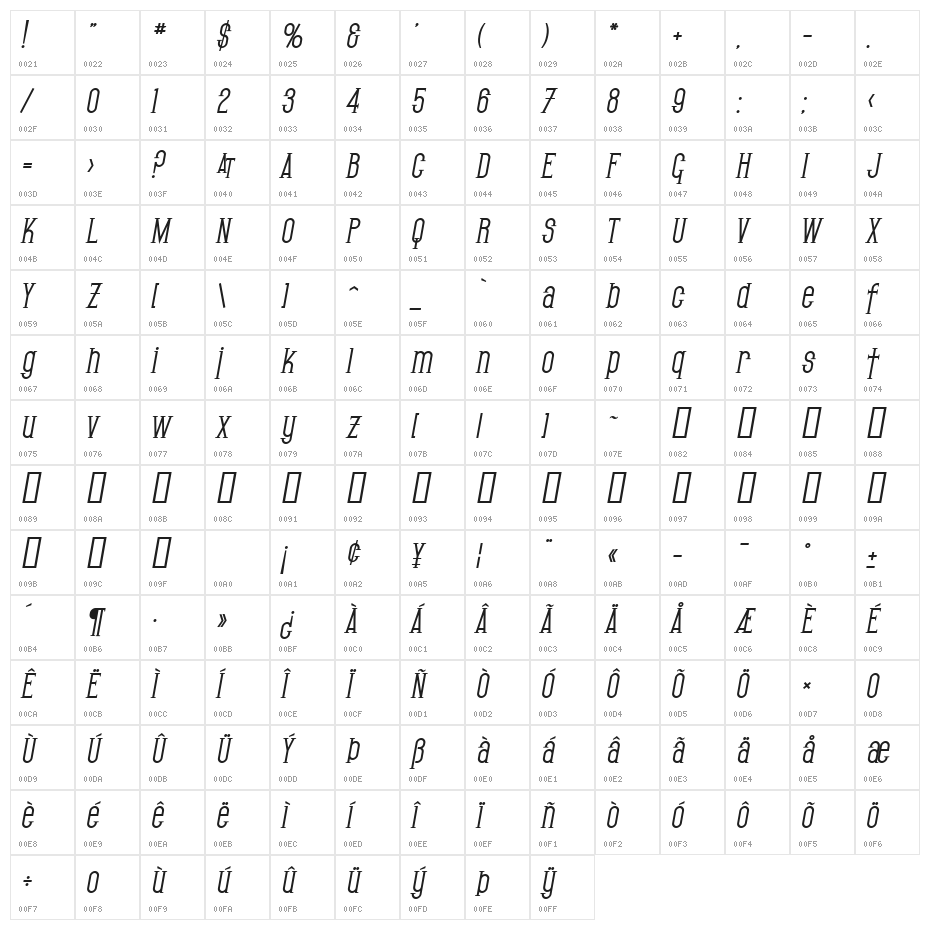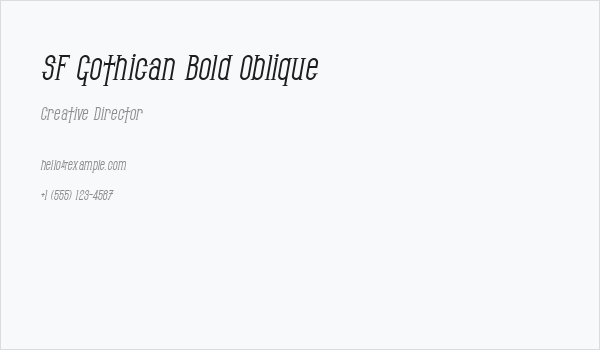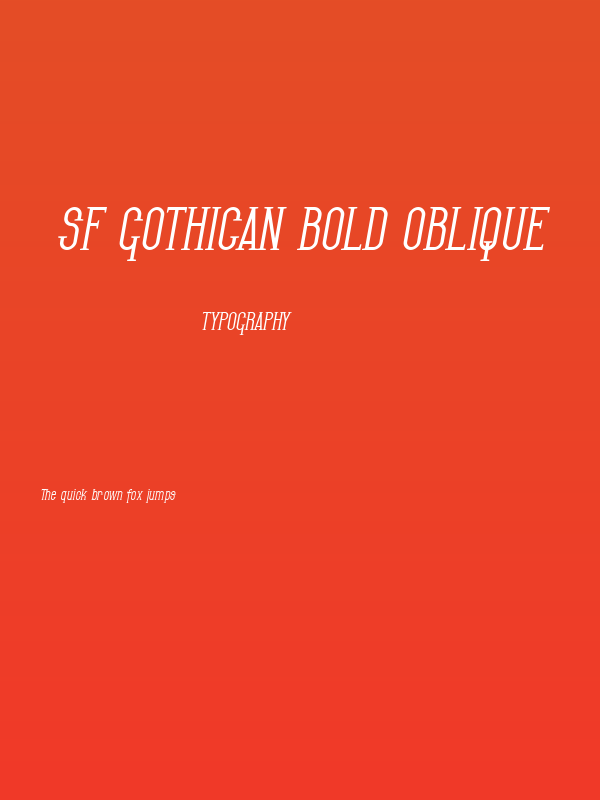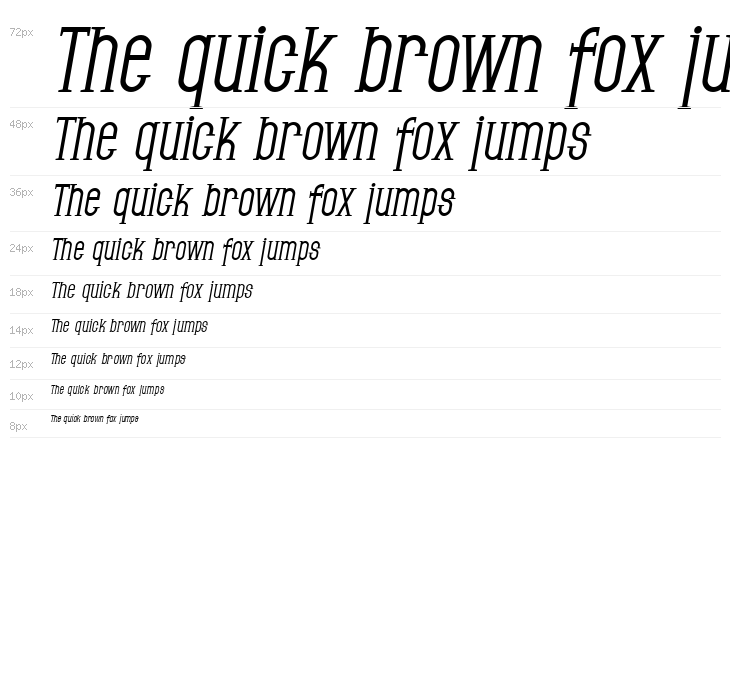
SF Gothican Bold Oblique Font
SF Gothican Bold Oblique Description
This font features a bold and oblique style with a strong presence. The uppercase and lowercase letters are designed with a consistent slant, giving it a dynamic and forward-moving appearance. The characters are tall and narrow, with a distinct serif that adds a touch of elegance. The numbers and special characters follow the same stylistic cues, ensuring uniformity across all glyphs. The overall design is modern yet retains a classic serif structure, making it versatile for various applications.
| Proposed Projects | Ideal for branding, editorial design, and advertising where a strong, dynamic typeface is needed. |